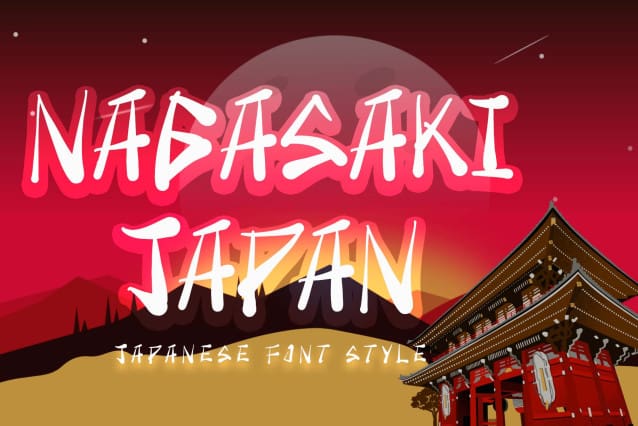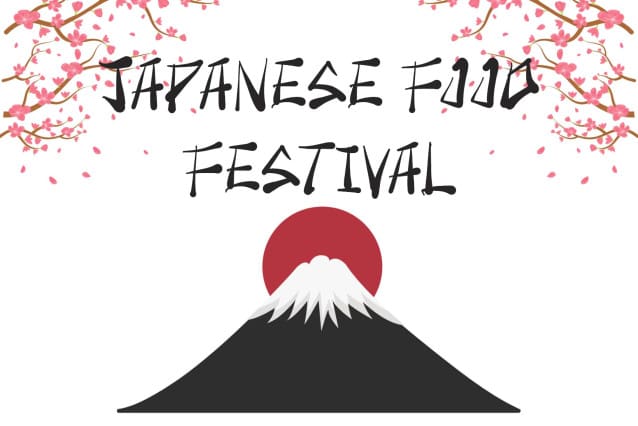
Nagasaki Japan Font
Nagasaki Japan Font is an elegant Japanese style font. It comes with capital letters, lowercase letters, numbers, punctuation, and multilingual support. It is perfect for business branding, Japanese restaurants, banners, branding, stickers, posters, prints, restaurant logos, movie titles, and more.